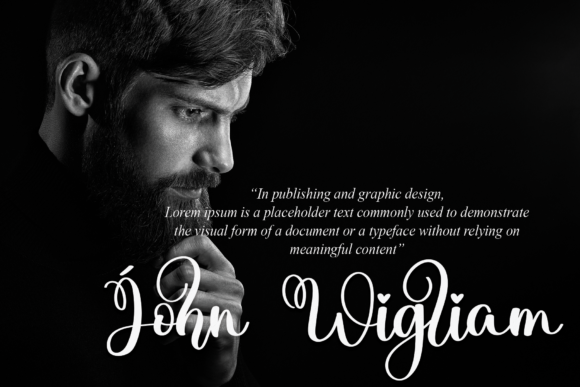
Wednesday Font
db-ku.com - Script & Handwritten -- Wednesday is a sweet and subtle handwritten font that is crafted with great care for maximum results. It will add elegance and class to any of your design projects.